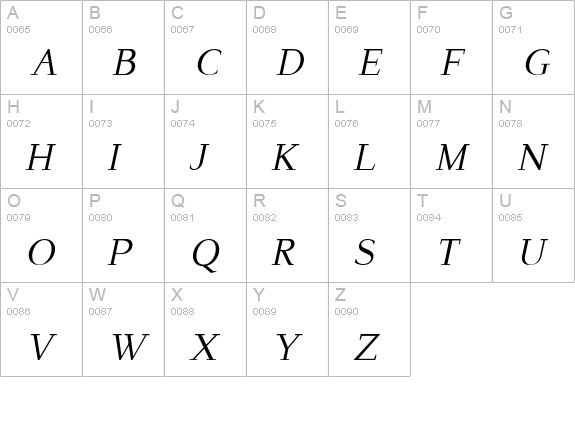
FlyHigh Italic Font Details
FlyHigh Italic is a distinctive, italic variant in the FlyHigh typeface family \xE2\x80\x94 well suited to design and typography projects.